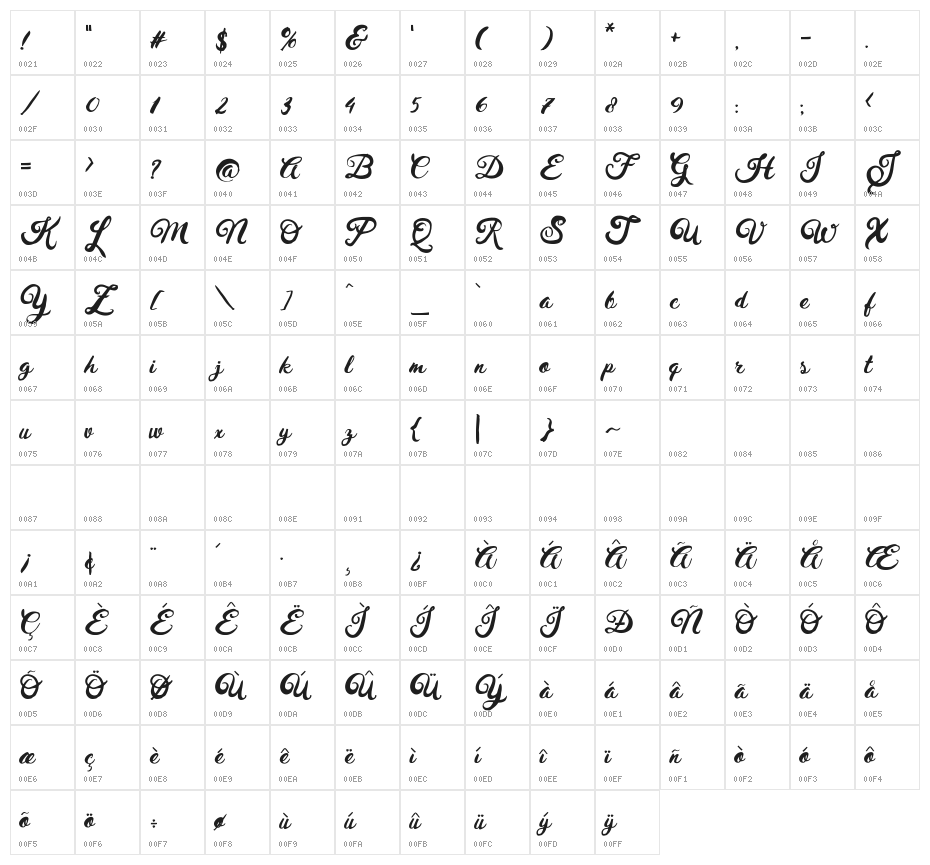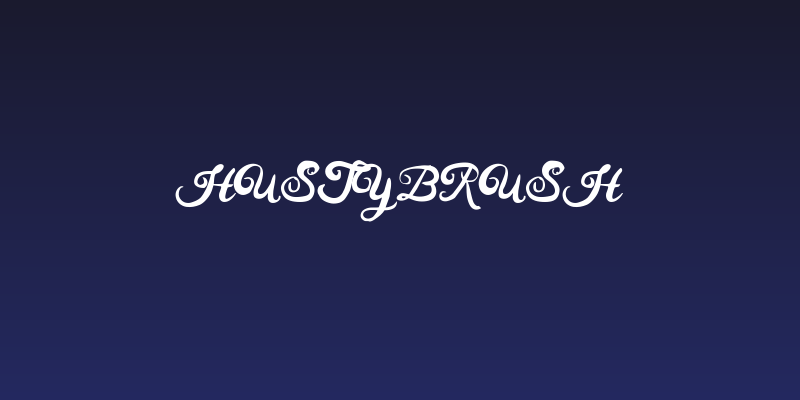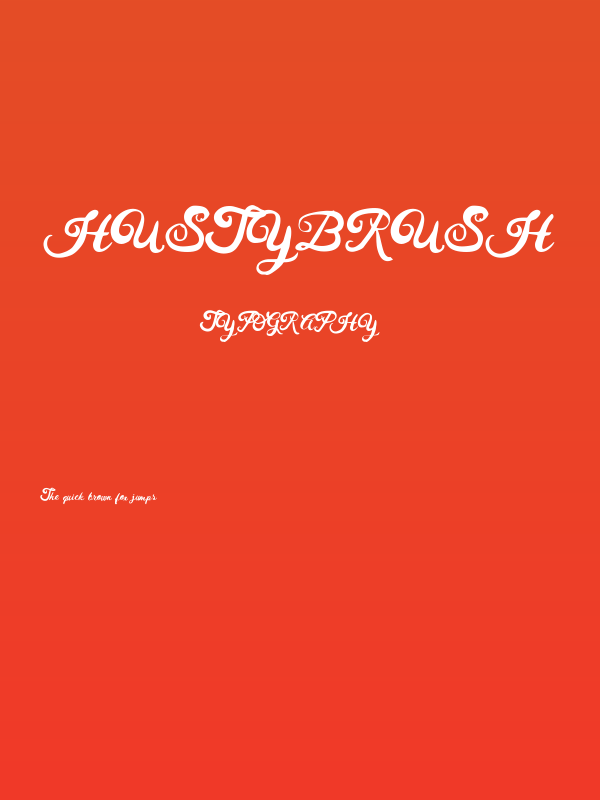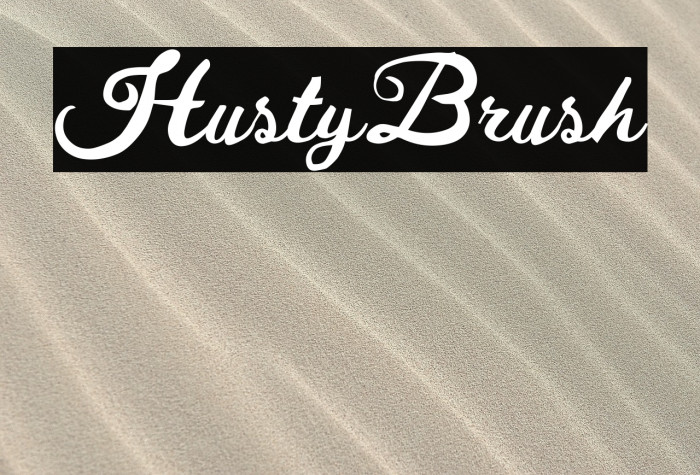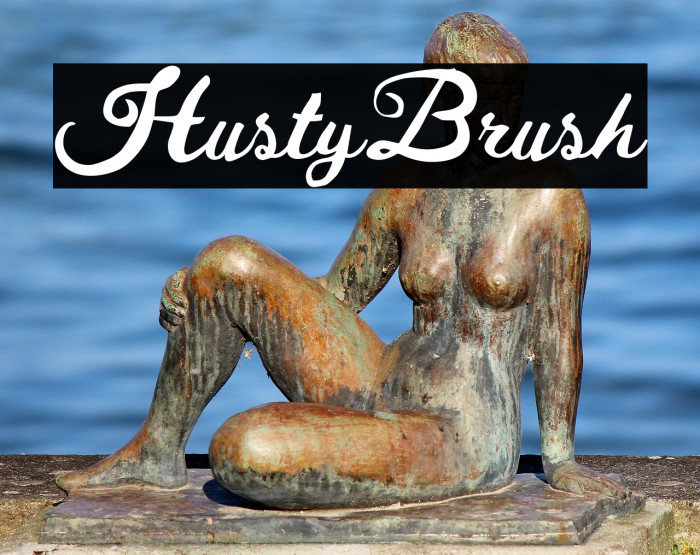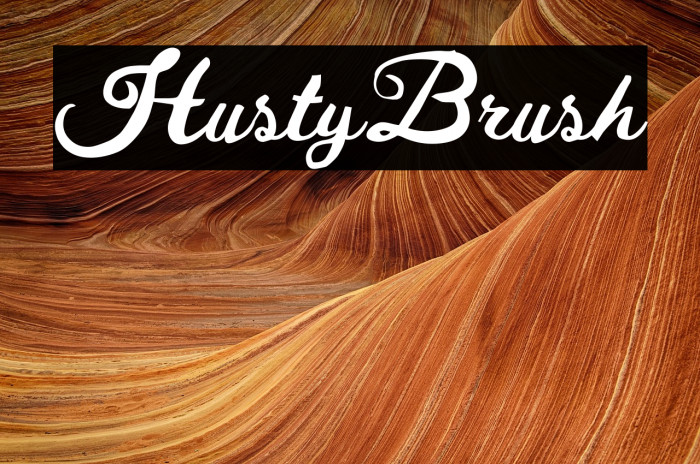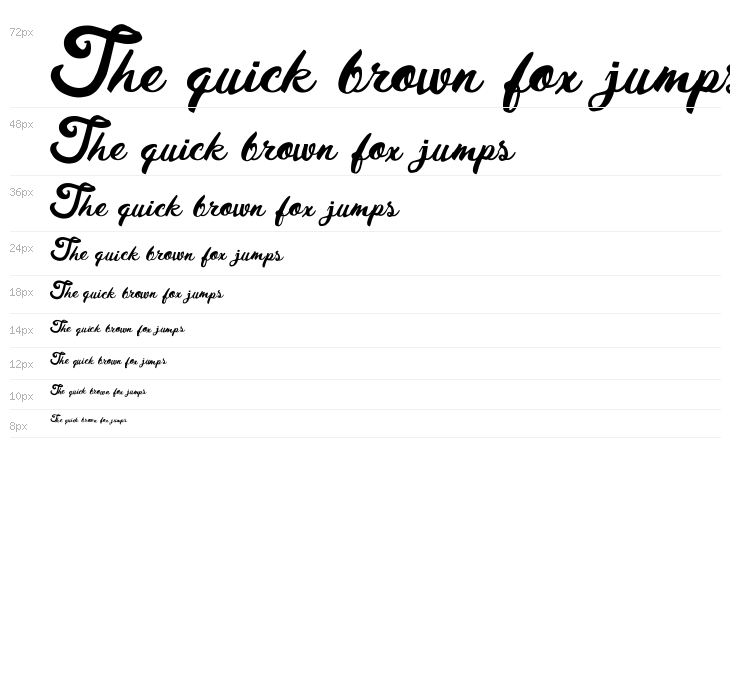
HustyBrush Font
HustyBrush Description
This font exudes a dynamic and expressive style, characterized by its flowing, cursive script that mimics the strokes of a brush. The letters are interconnected, giving a sense of continuity and fluidity. The uppercase characters are ornate, with elaborate swashes and flourishes that add a touch of elegance and sophistication. The lowercase letters maintain a consistent rhythm, enhancing readability while retaining the artistic flair. The numerals and special characters are crafted with the same attention to detail, ensuring a cohesive look across all elements. This font is ideal for projects that require a personal, handcrafted feel, such as invitations, branding, and artistic designs.
| Use Case | Logos, Headlines, Artistic designs |
| Proposed Projects | Ideal for wedding invitations, branding, artistic designs, and personal projects requiring a handcrafted touch. |